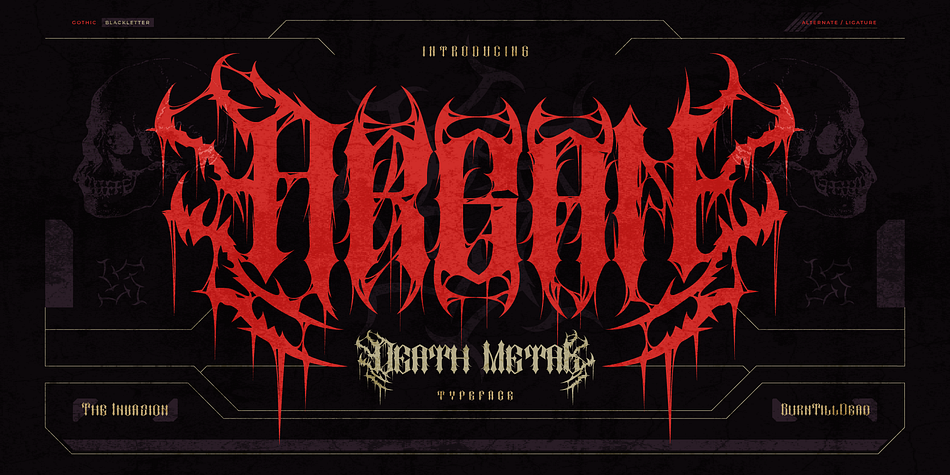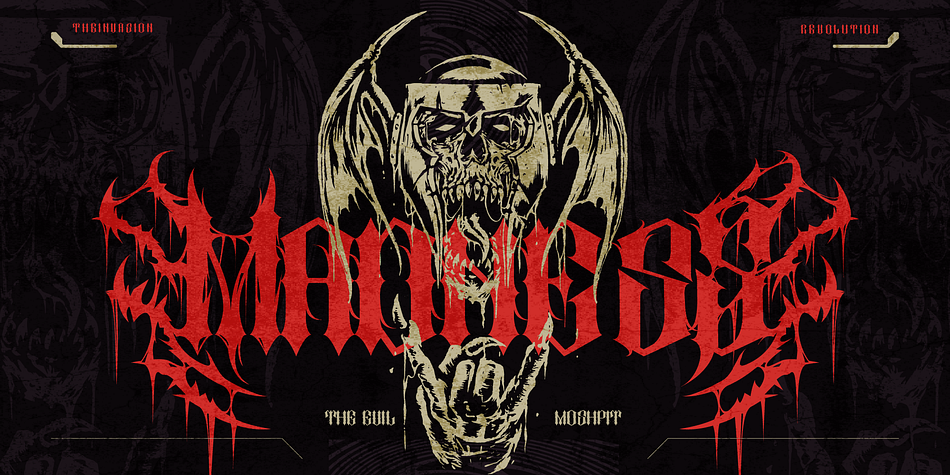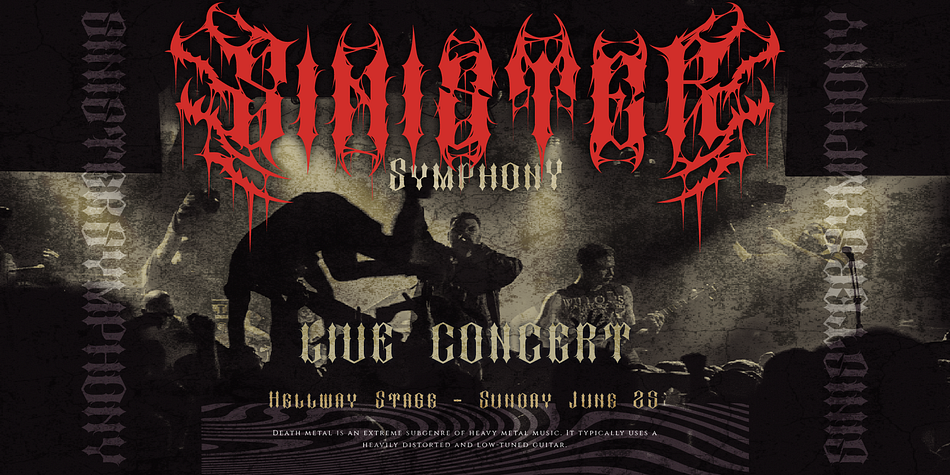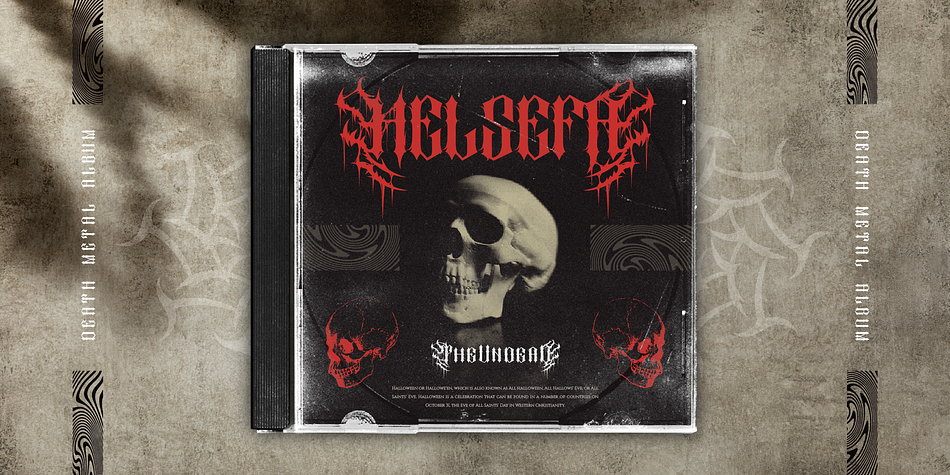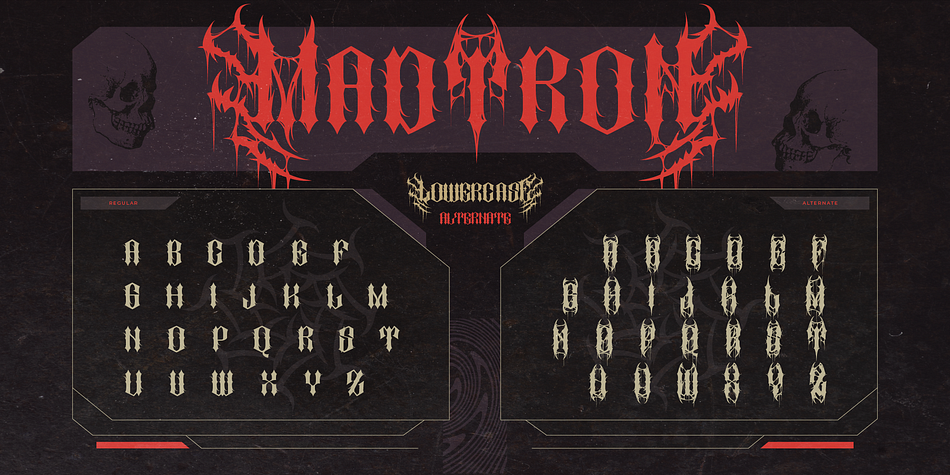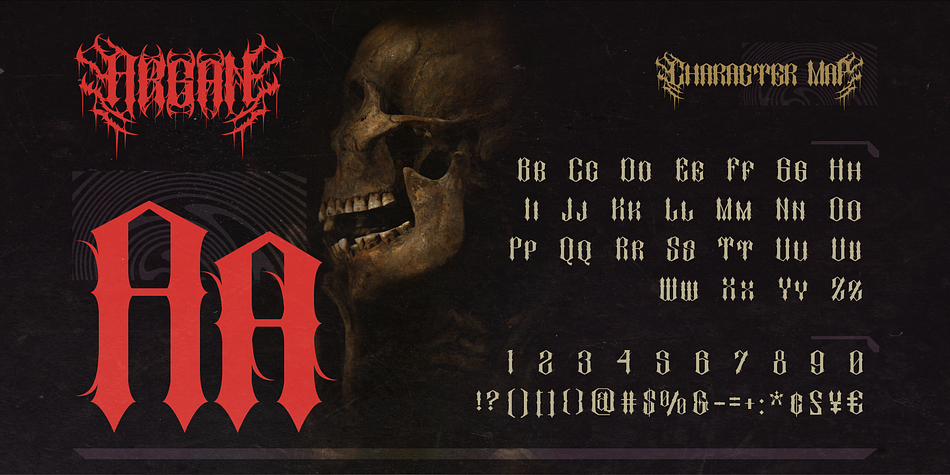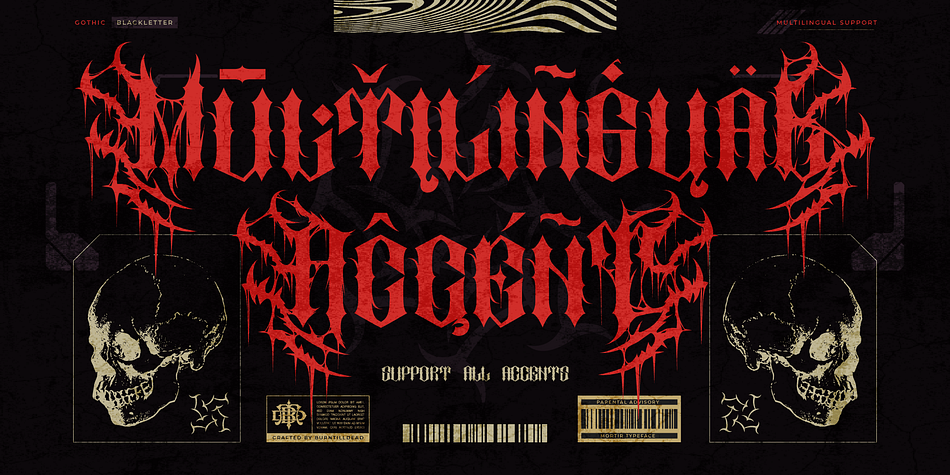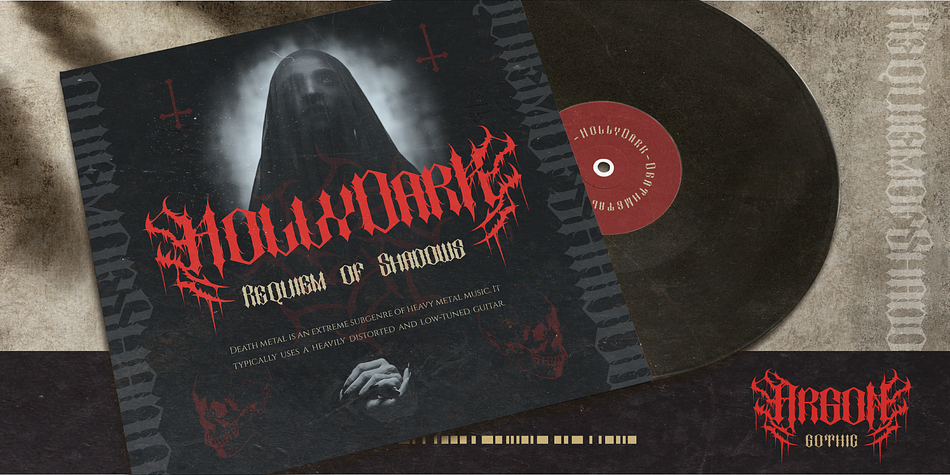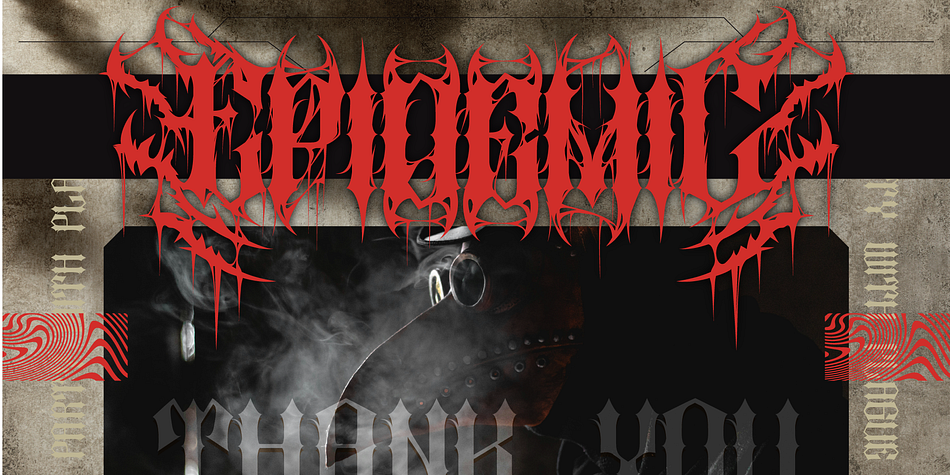
Argan
Designed by Eric Kurniawan, Argan is a blackletter and grunge font family published by Burntilldead.
Argan is a black metal font with sharp angular and distorted letters. It creates a sense of chaos and is usually used to evoke the darkness associated with the black metal music genre.
Let’s growl, breaking through the silence with Argan, as loud and violent as the genre itself—where each letter evokes an aesthetic brutality.
Argan perfectly used in promotional materials for metal concerts, album artwork or cover, concert posters, branding and any design that requires a touch of death metal.
* Argan A-Z set
* Numerals
* Punctuation
* Alternate